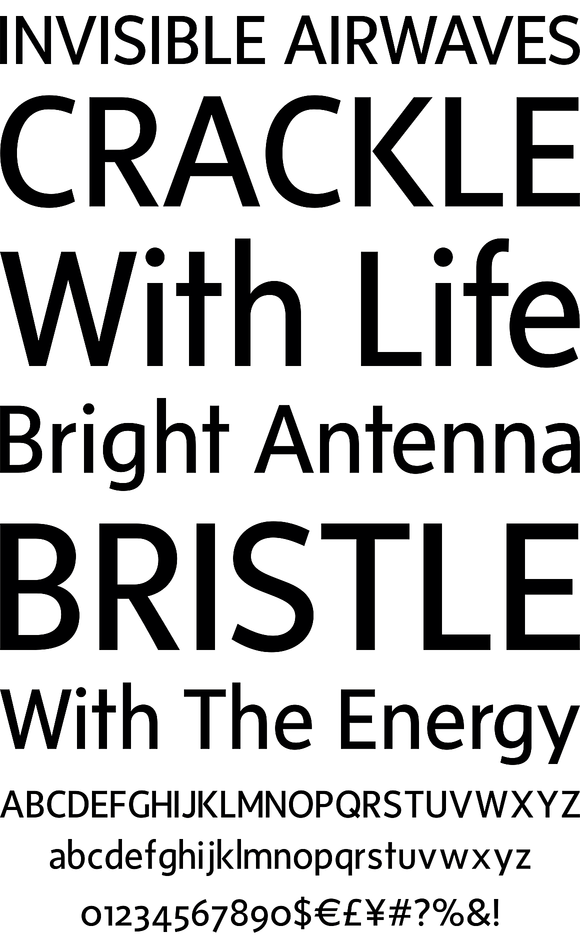
Sense and Sensibility
Foundry: Shinntype
Over time, many of the functors of page layout have become formalized within the concept of typeface as morphic categories, categories being the semantic building blocks of perception at the level of both individual physiology and social production. First case, then skew, weight, horizontal scale and serifization have evolved as the axes about which type families may be configured. To these Nick Shinn has added a cultural axis, with modern (minimalist) and old style (humanist) as the poles of the sans serif genre.
Shinntype's Sense and Sensibility comprise a super-family of two styles of roman with italic, sharing stem widths, vertical metrics, and horizontal scale (though not exact equivalence of character widths). There are eight weights, with alternate figures and identical tab figure width across all 32 fonts.
The types were originally developed for David Pratt's 2007 redesign of The Globe and Mail (Canada's National Newspaper), and have subsequently been slightly modified, with the addition of a Black weight and extended language support.